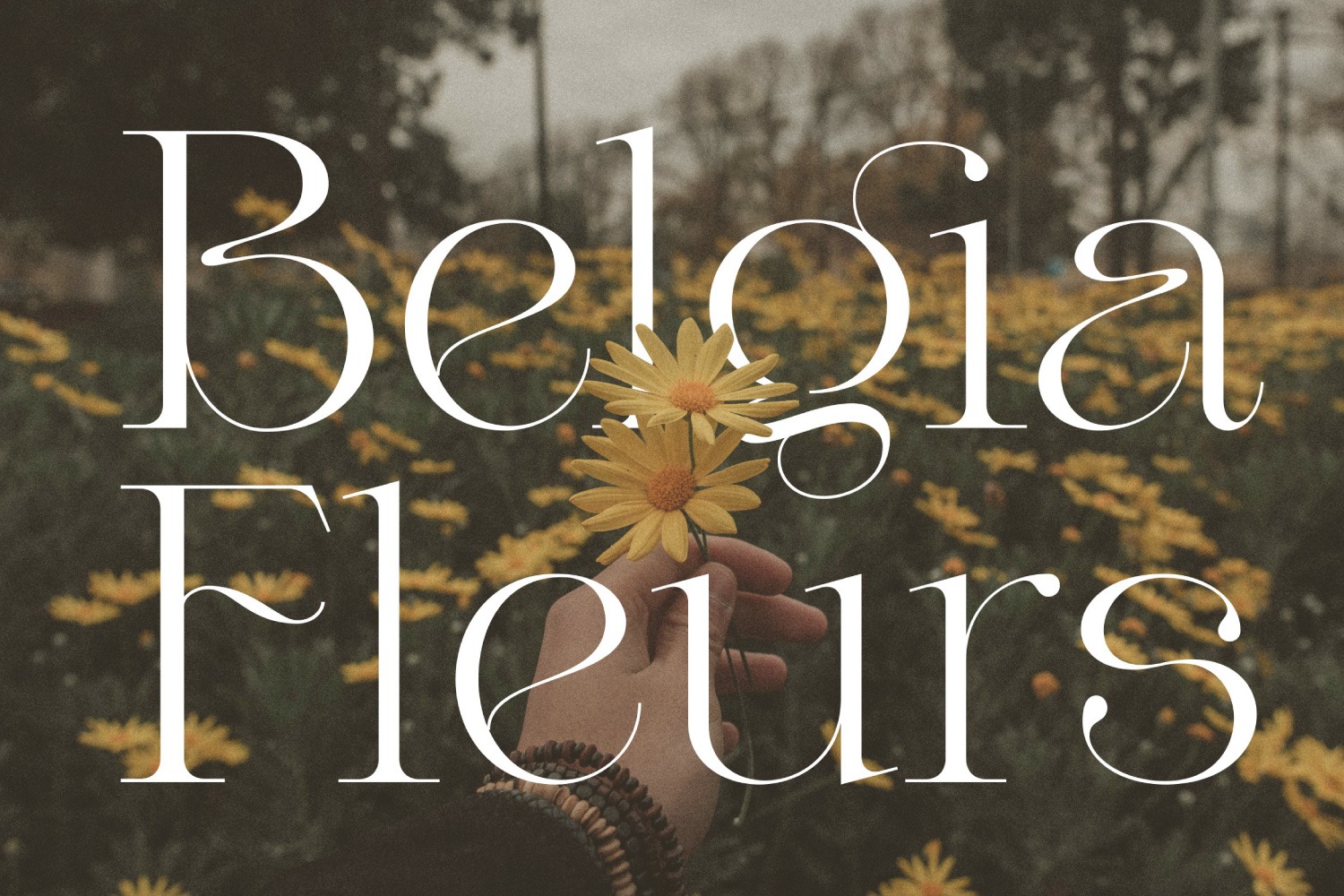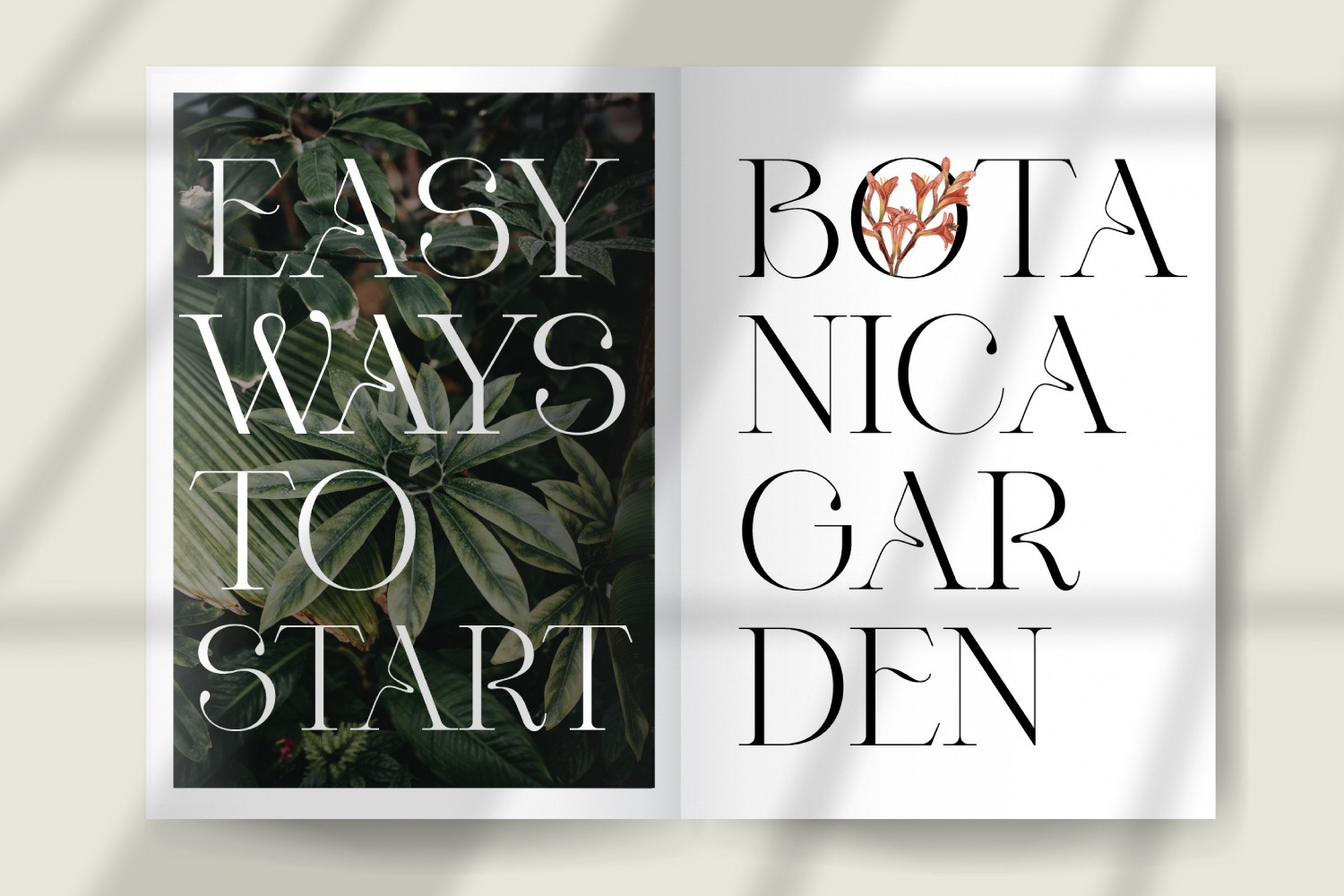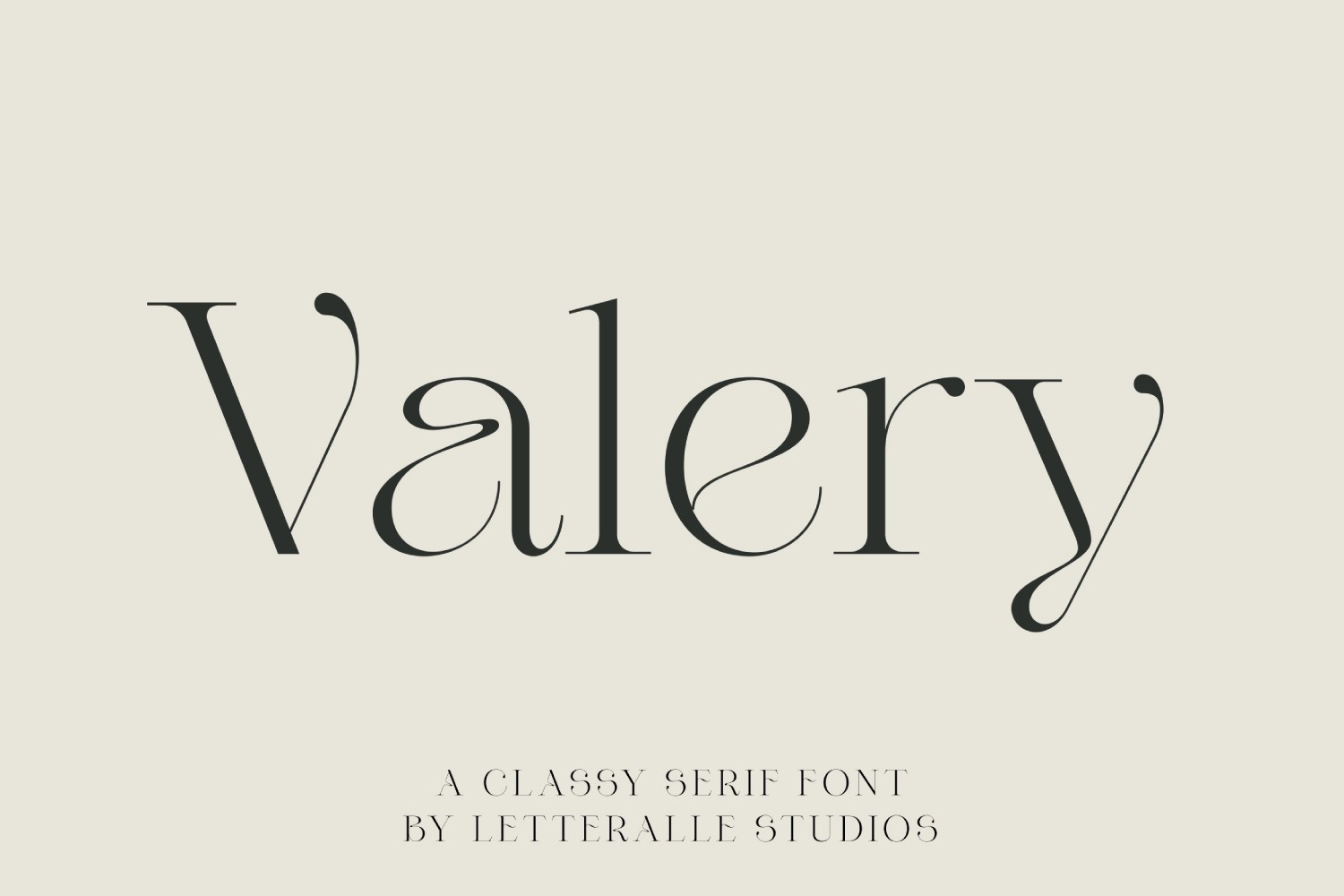
Valery Serif Font
This is a modern ligature serif typeface manufactured by Letteralle. It’s soft curves mixed with high contrast glyphs, give it a feminine and masculine quality. Valery is a versatile and multigender font. Perfect for editorial projects, Logo design, Wedding, Clothing Branding, product packaging, magazine headers, or simply as a stylish text overlay to any background image.